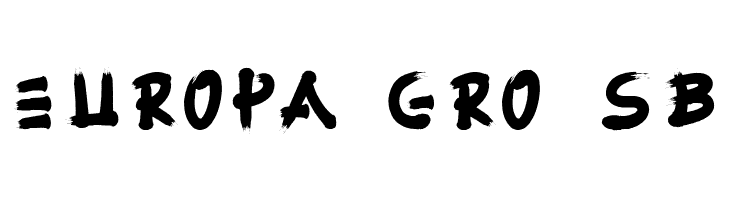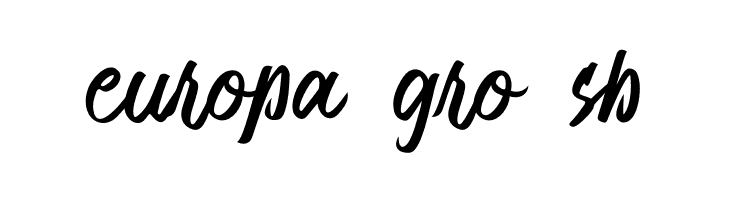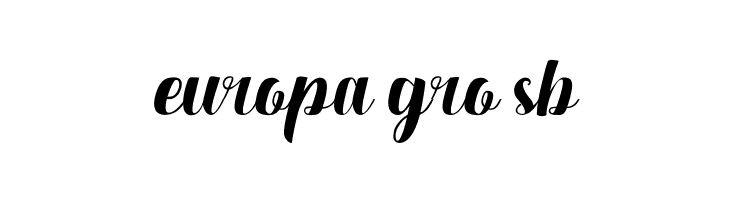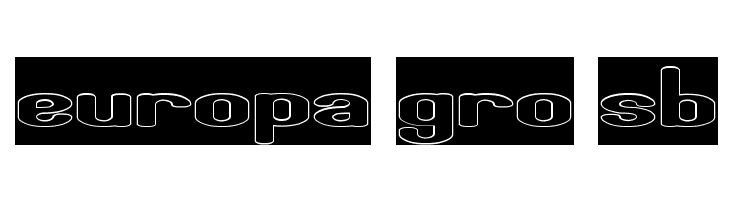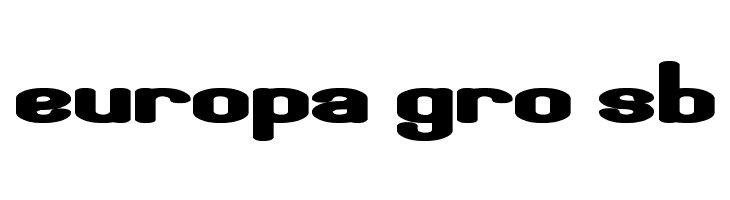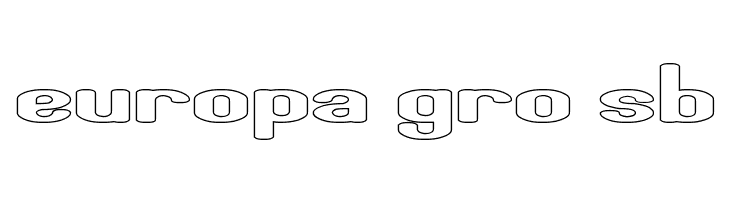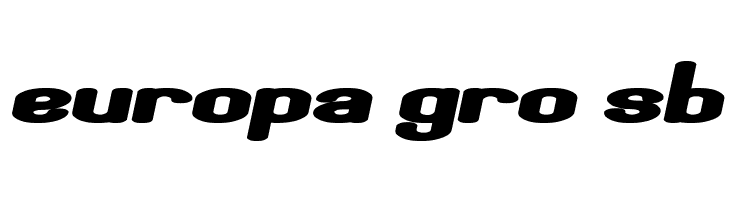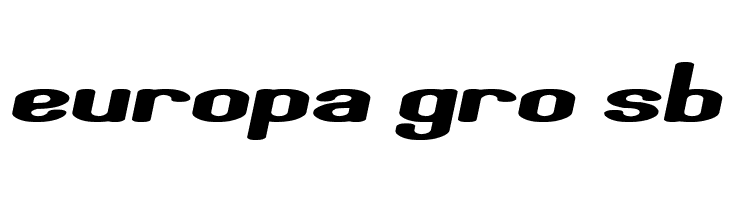
A bold, cursive font with a lively and dynamic style.
Playful and bold handwritten font.
A bold, modern script font with elegant curves and a dynamic style.
A bold, brush-style font with dynamic and expressive strokes.
A playful, handwritten font with fluid, connected strokes and a casual elegance.
A bold, playful font with rounded edges and a strong presence.
A bold, playful, and italic font with rounded characters and a dynamic style.
A playful, bold italic font with rounded characters and a dynamic style.
A playful, modern hollow font with rounded edges and consistent proportions.
A bold, hollow, inverse font with a playful and modern design.